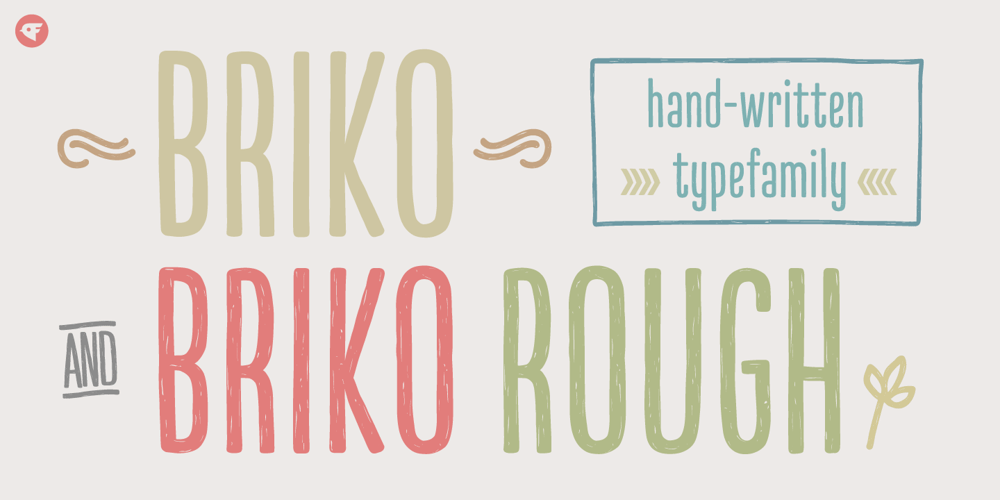
Briko Font Family was designed by Paul Chen and published by Nine Font. Briko contains 12 styles and family package options. Briko is a legible hand-crafted type family that comes in two weights. Its little bit bumpy outline and soft edges give it friendly feelings. There are two versions of Briko Family; Briko and Briko Rough(textured). Perfect for a header for an article, posters or for anything needing a legible and neat hand-written type family.